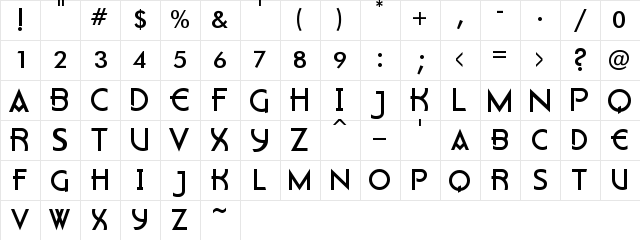
Flatley Regular
Complete Flatley Regular glyph index. Displaying only characters natively supported by Flatley Regular font.
Design Context for Flatley
Flatley is a composed and adaptable typeface that performs quietly and consistently across a wide range of design contexts.